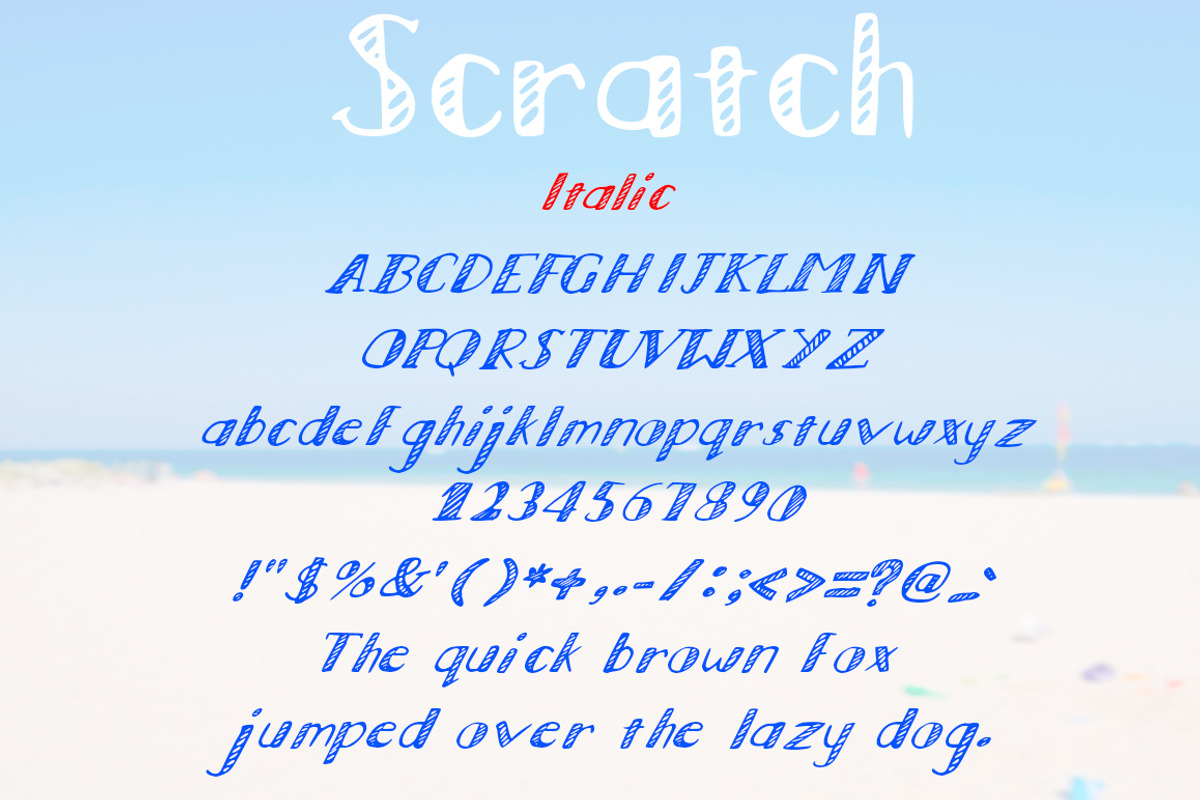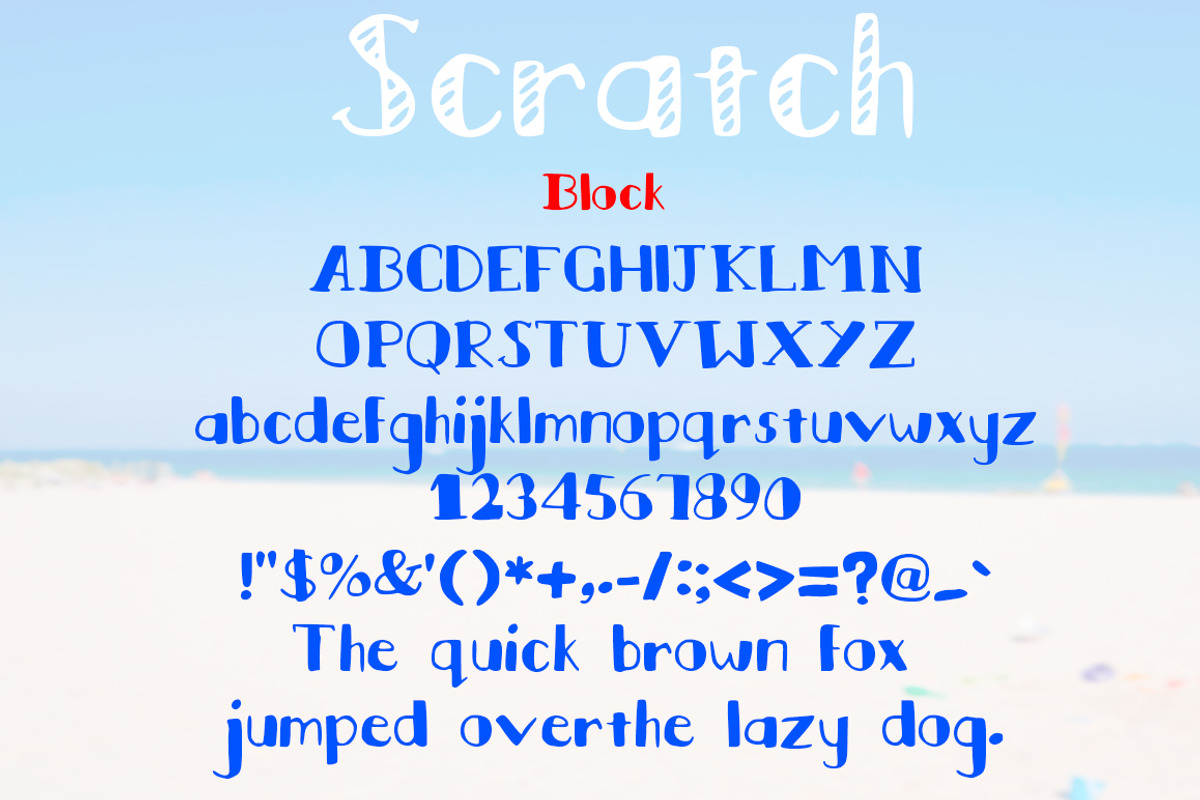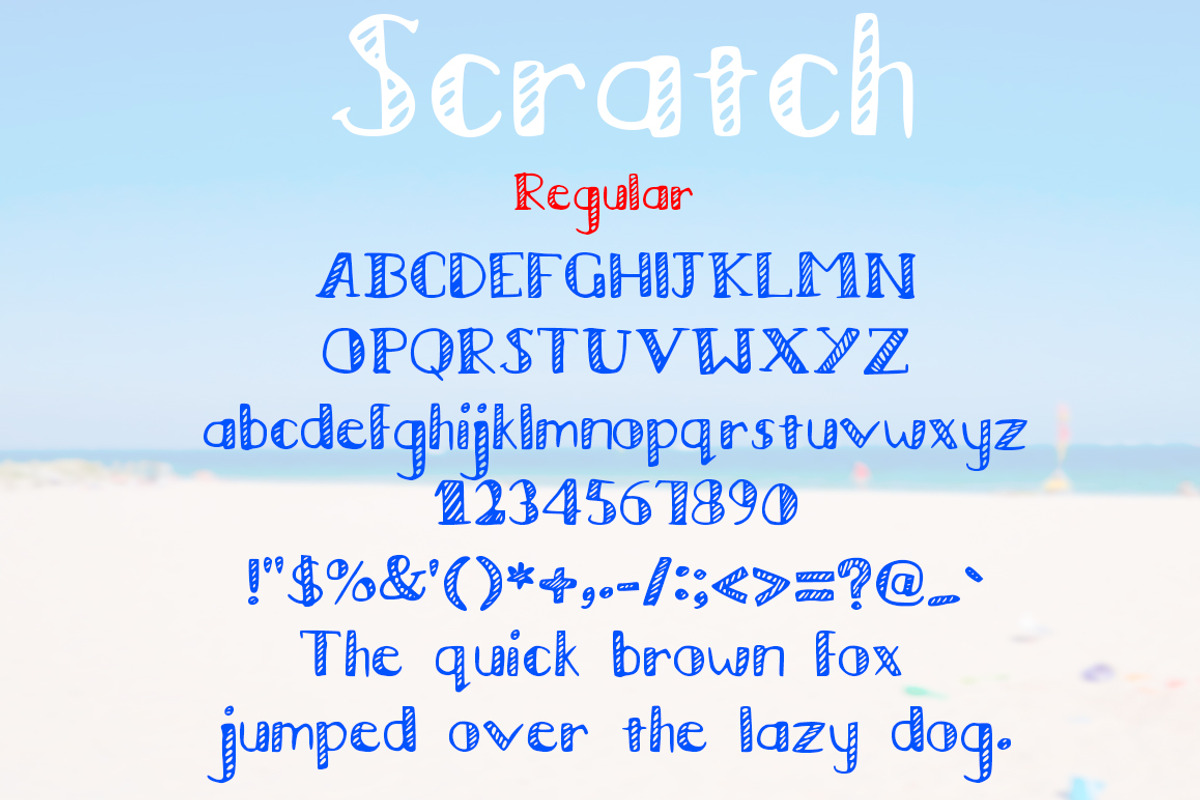
Scratch -Regular, Block, Italic Font
Scratch -Regular, Block, Italic Font by Violet LeBeaux is a font selected for branding, posters, packaging, typography.
- Scratch comes with Regular, Block and Italic options as well as uppercase, lower case, numerals and punctuation.
Why Scratch -Regular, Block, Italic Font is worth a look
Scratch -Regular, Block, Italic Font by Violet LeBeaux fits naturally into Branding, posters, packaging, typography.